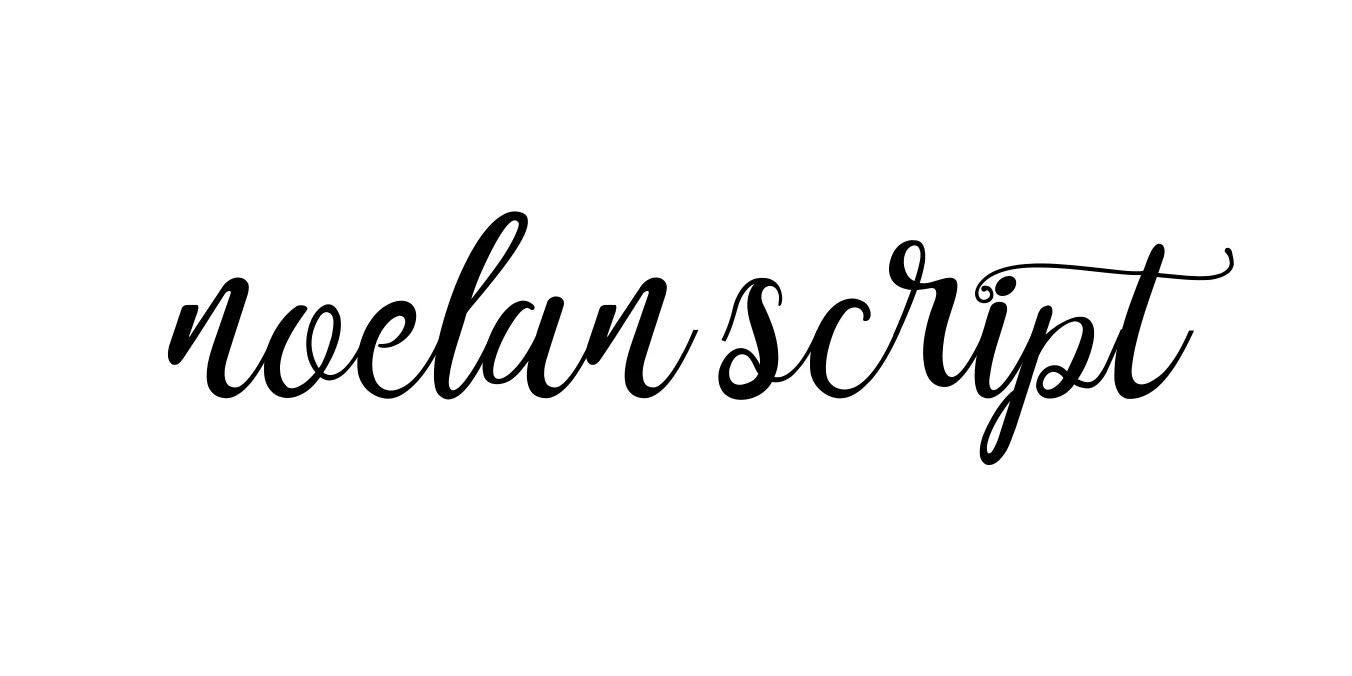
noelan script
Designed by Ndroadv
Noelan Script is a modern calligraphy typeface created by Ndroadv. It features a clean, hand-drawn look that balances elegance with a casual aesthetic, making it highly adaptable for various design purposes. One of its standout features is the inclusion of several alternates and international characters, which allow designers to mix and match letterforms for a more customized typographic experience.
The font is widely celebrated in the DIY and craft community for its smooth curves and flowy structure. Because it includes decorative swashes and ligatures automatically, it enables creators to generate professional-looking typography for branding, digital media, and print without the need for manual illustration. It remains a top choice for projects requiring a feminine, high-end, yet approachable touch.
noelan script Best Uses
Perfect for creating romantic and sophisticated invitations and save-the-date cards.
Ideal for eye-catching quotes and artistic overlays on platforms like Instagram and Pinterest.
Adds a personal, artisanal touch to logos for boutiques, florists, and lifestyle brands.
Great for labels on handmade goods, organic products, and luxury items.